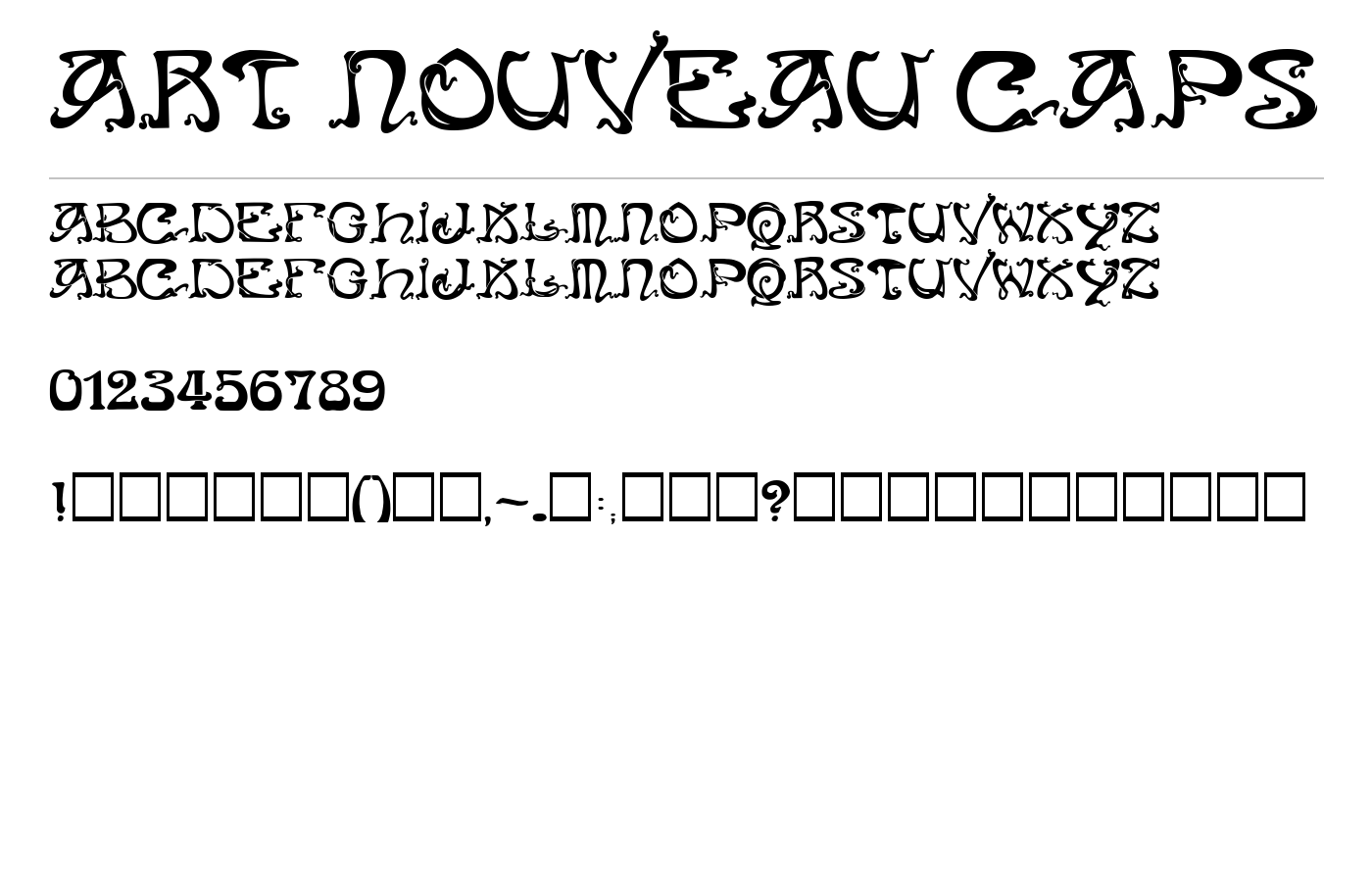
Art Nouveau Caps is a decorative serif font inspired by the Art Nouveau movement, featuring intricate, flowing lines and ornamental details that give it a vintage, artistic feel. With its bold weight, medium width, and playful yet elegant curves, this font is perfect for eye-catching headlines, logos, or packaging that seek a unique, nostalgic touch. Its distinctive style works best in creative and luxury branding where an expressive, ornate look is desired.
Art Nouveau Caps Font
About Art Nouveau Caps Font